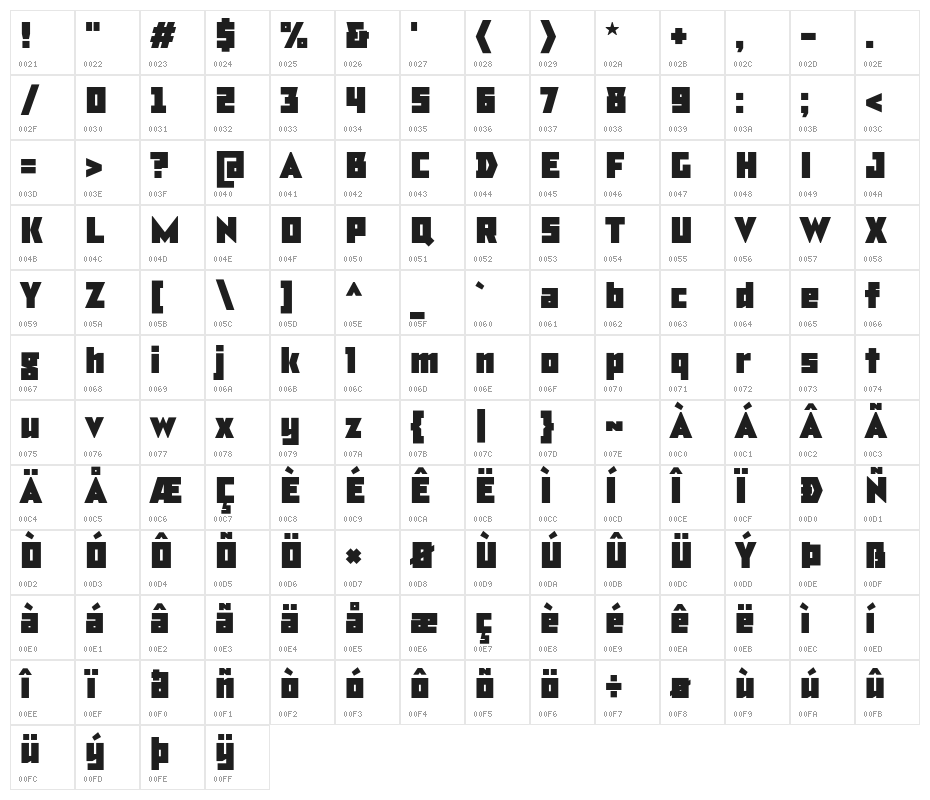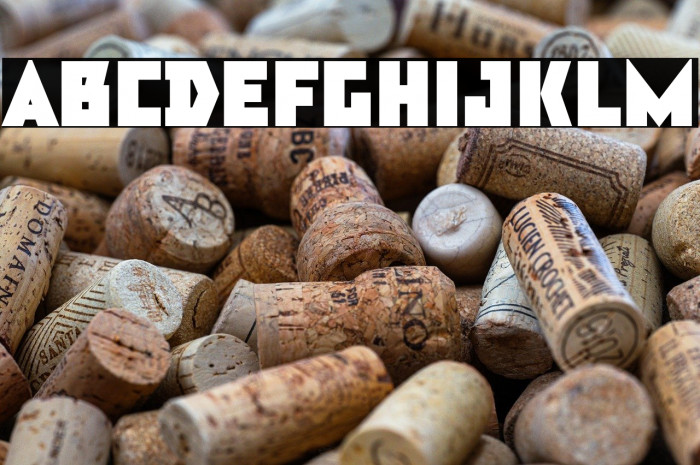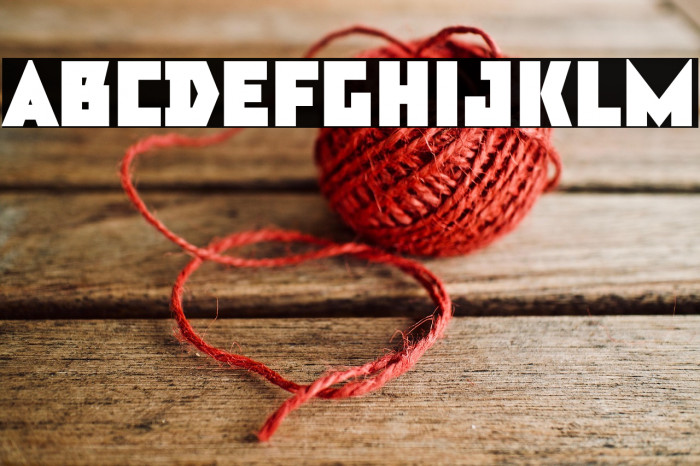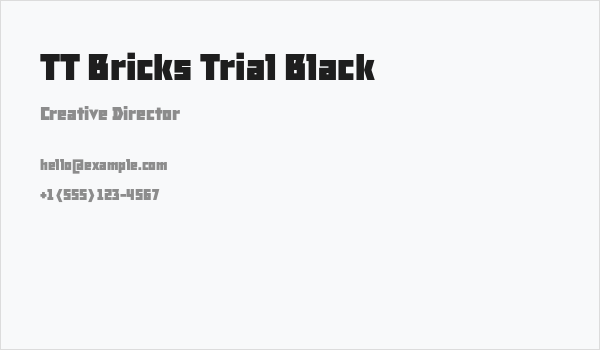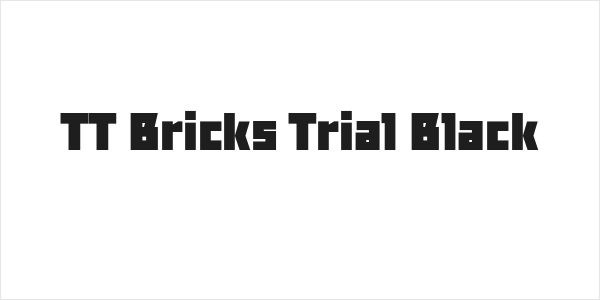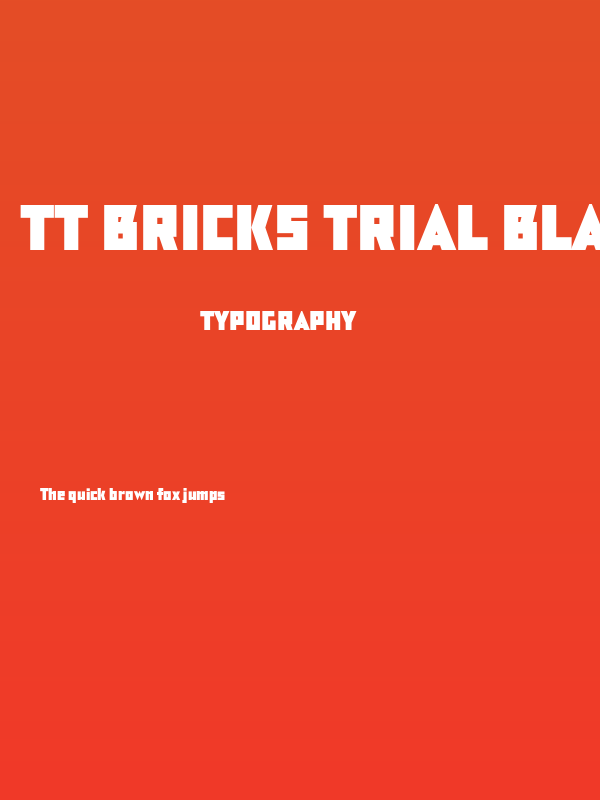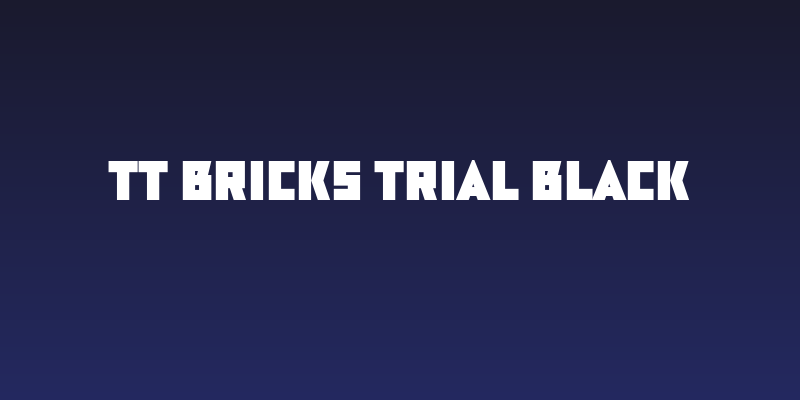
TT Bricks Trial Black Font
TT Bricks Trial Black Description
This font features a bold and geometric design, characterized by its blocky and angular letterforms. The uppercase and lowercase letters maintain a consistent width, creating a uniform appearance. The sharp angles and straight lines give it a modern and industrial feel, making it stand out with a strong visual impact. The numerals and special characters follow the same design principles, ensuring cohesiveness across all glyphs. Its thick strokes and solid structure make it highly legible, even at smaller sizes, while the unique shapes add a distinctive flair.
| Proposed Projects | Ideal for branding, posters, headlines, and any project requiring a strong, modern aesthetic. |